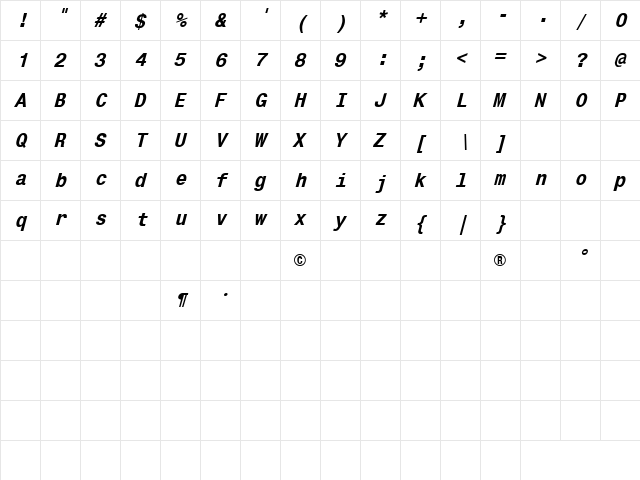
CorporateMonoBI Bold Italic Font Preview
Design Context for CorporateMonoBI Typeface
CorporateMonoBI uses fixed-width spacing throughout, giving it the structured, systematic character associated with coding environments and technical documentation. Its italic angle brings a sense of urgency and motion to the letterforms. Its bold stroke weight gives it real presence on the page.
A natural fit for code editors, technical documentation, developer-focused branding, and terminal-inspired UI.
Pro Tip: Pair CorporateMonoBI with a proportional sans for UI contexts where code-style labels and regular body copy need to coexist.